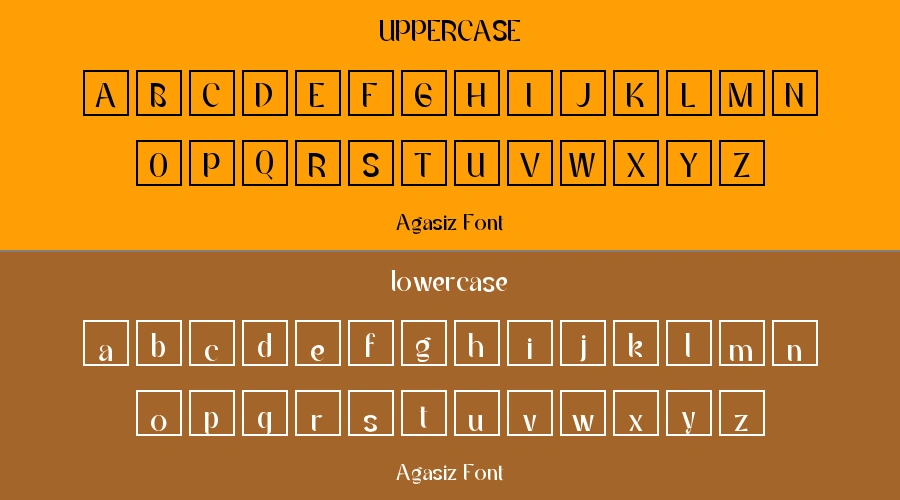
About Agasiz Font
Designed with precision, Agasiz Font merges organic forms with adaptability in every character. This versatility makes it particularly effective for architectural plans, where durability and cultural resonance directly impact communication quality. Each letterform demonstrates meticulous craftsmanship.
Technical excellence shines through elements like ligatures and tabular figures, enhancing typographic versatility. In section headers settings, Agasiz Font proves its worth through superior screen rendering. The thoughtful execution of corner treatment and cultural references ensures professional results.